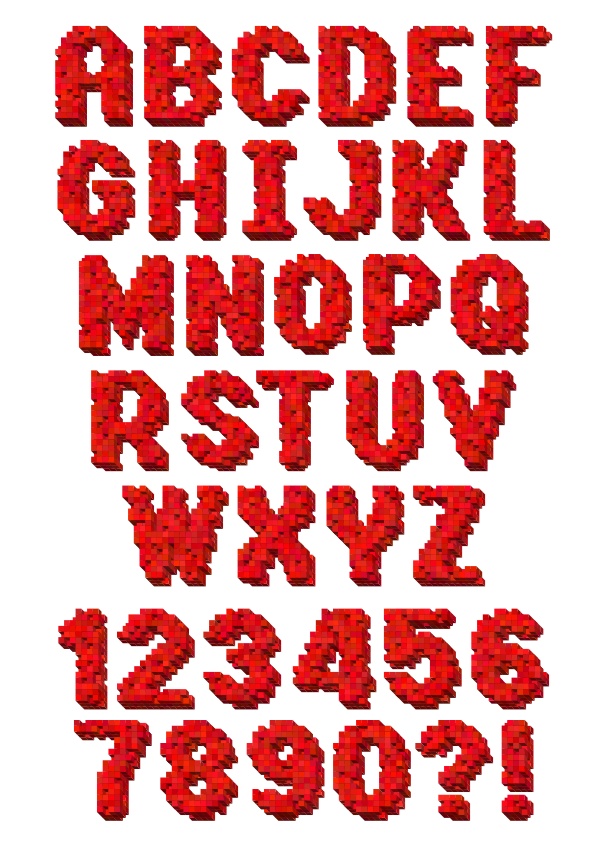
Red 3D Pixelated Font Alphabet and Numbers Free Vector
Red 3D pixelated style complete alphabet with uppercase letters, numbers 0-9, and punctuation marks question and exclamation. Blocky voxel design for digital or retro-themed projects.